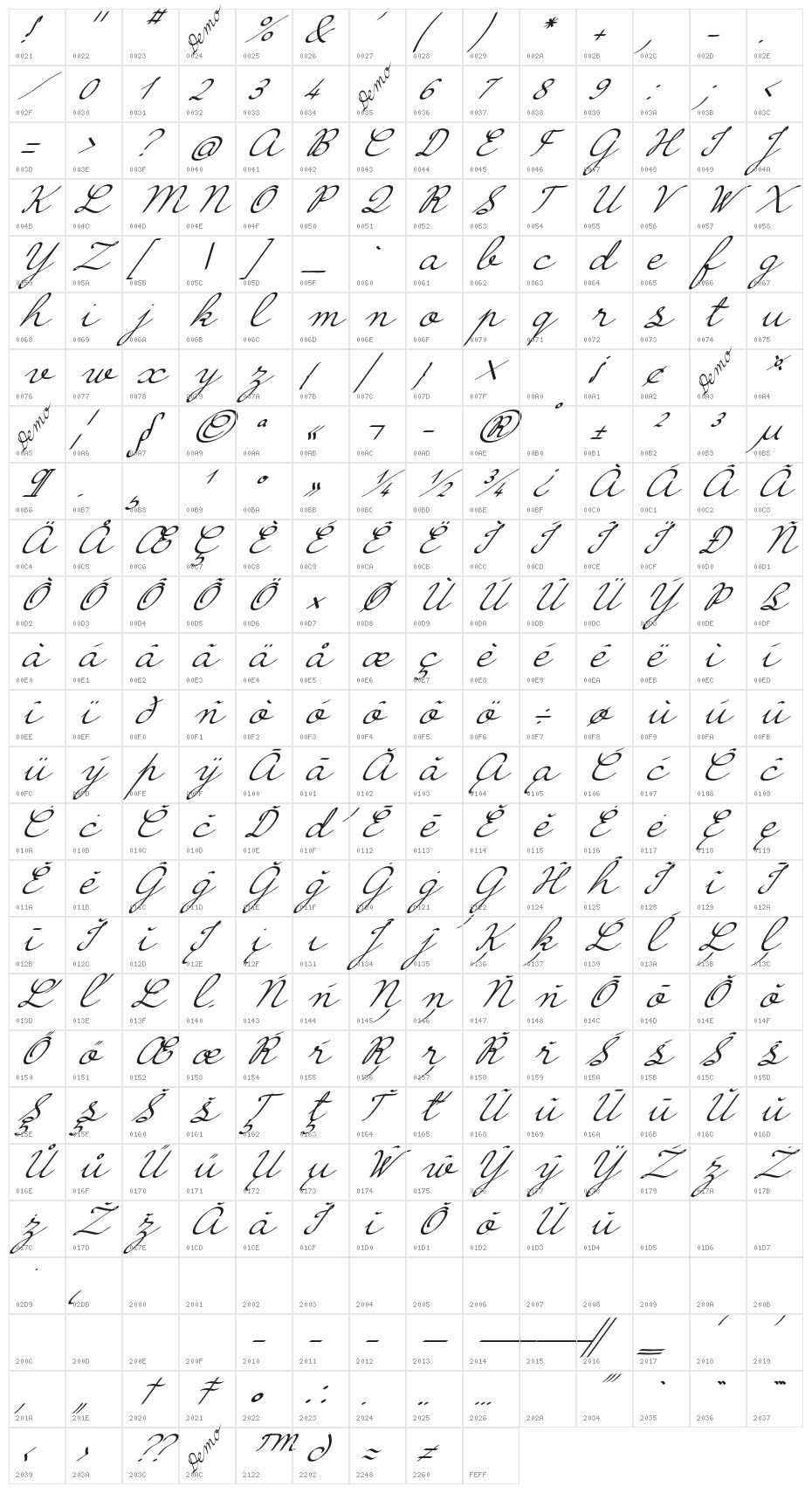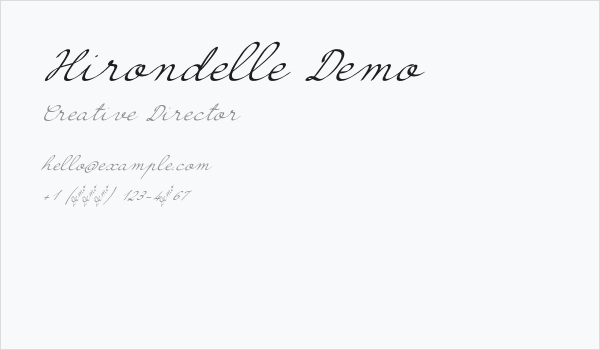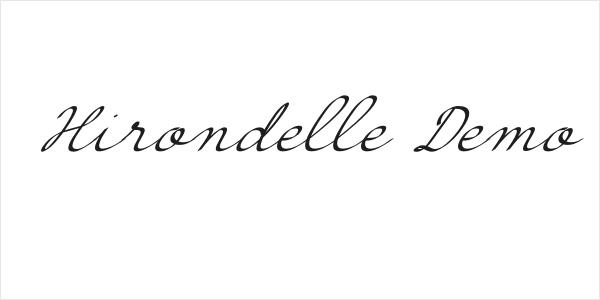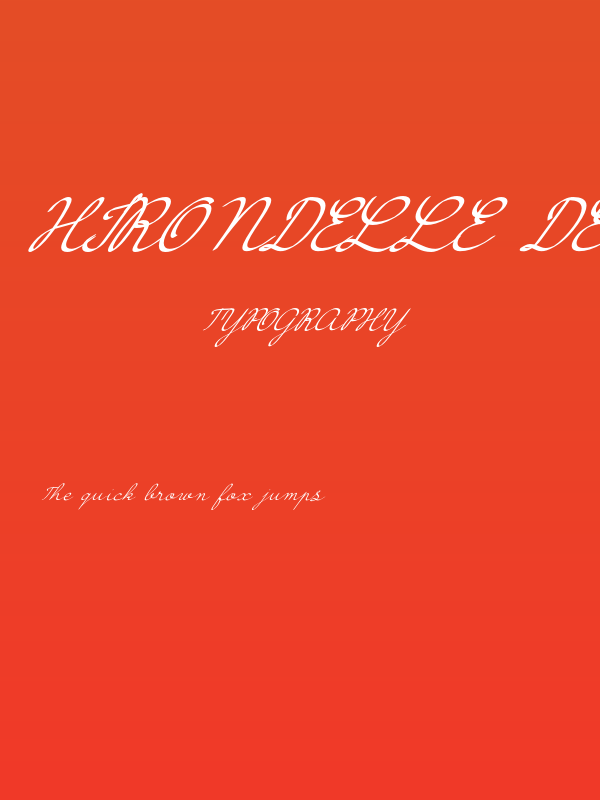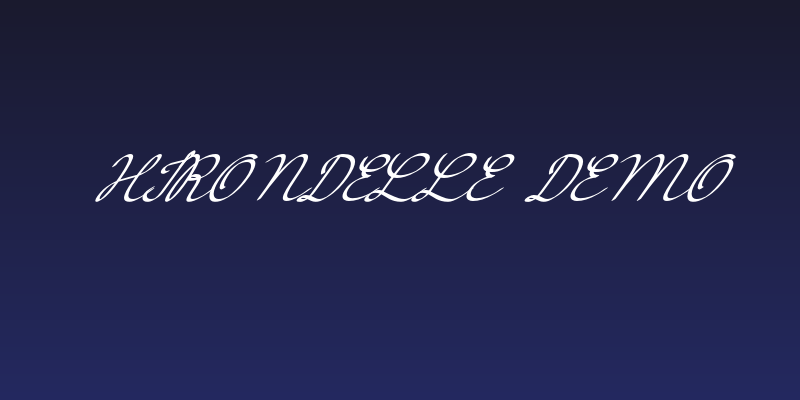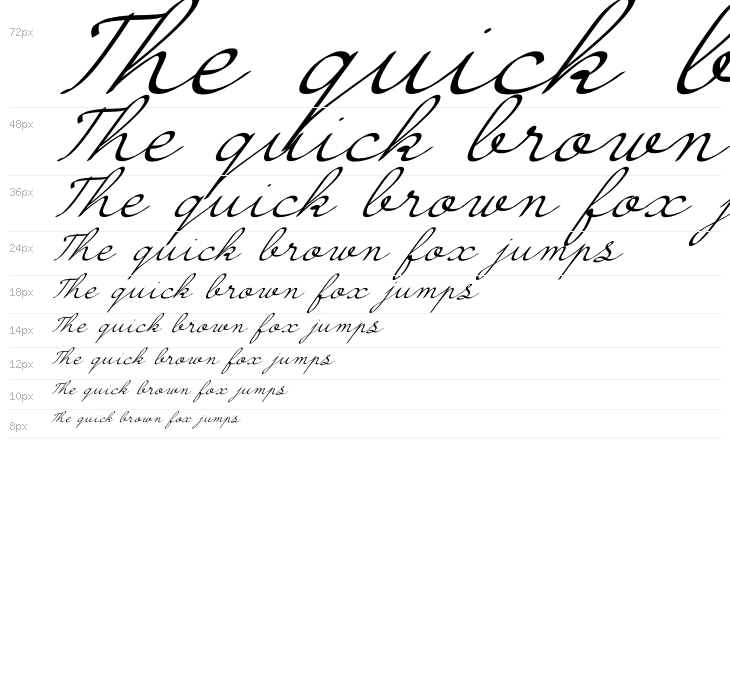
Hirondelle Demo Font
Hirondelle Demo Description
This elegant script font features a flowing, cursive style with high contrast between thick and thin strokes. The uppercase letters are characterized by sweeping curves and flourishes, giving a sense of sophistication and grace. The lowercase letters maintain a consistent flow, with smooth connections between characters, enhancing readability while preserving the decorative nature. Numbers and special characters are designed with the same attention to detail, ensuring a cohesive look across all elements. The font's overall appearance is both classic and stylish, making it suitable for formal and creative applications.